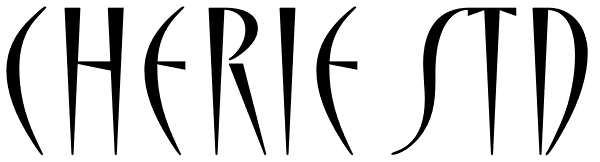
ITC Cherie
Some words from the designer... Like long legs walking a runway in stiletto heels, ITC Cherie is both sophisticated and feminine. West coast designer Teri Kahan developed this art nouveau-style font into two distinct all capital alphabets – one with...